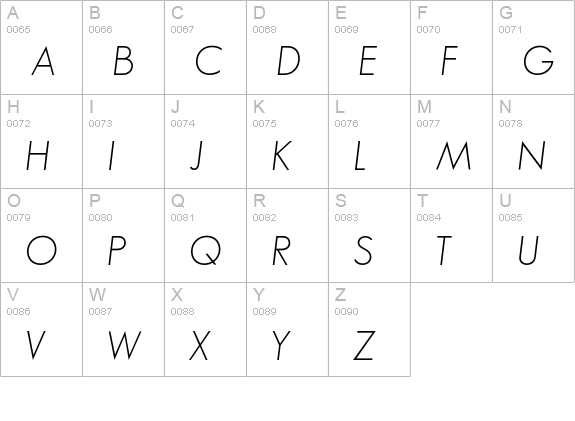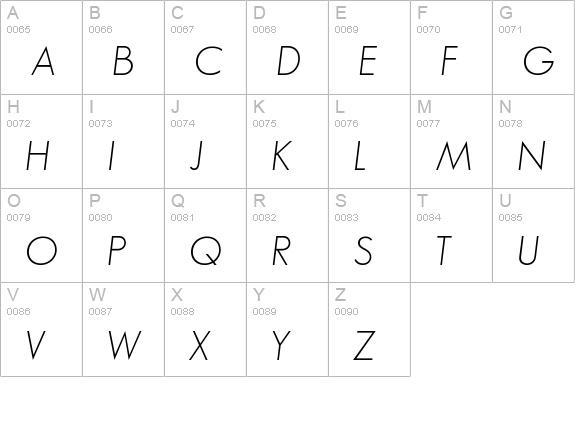
SansSerifFLF-Italic Font Details
SansSerifFLF-Italic is a distinctive, italic variant in the SansSerifFLF typeface family \xE2\x80\x94 well suited to design and typography projects.
Introducing SansSerifFLF-Italic, a visually captivating font that effortlessly adds an elegant touch to any design project. With its sleek and modern appeal, this font is perfect for those looking to make a bold statement while still maintaining a sense of sophistication. The italicized nature of SansSerifFLF-Italic brings a sense of movement and dynamism, making it ideal for attention-grabbing headlines, stylish logos, and eye-catching branding materials. Its graceful curves and gentle slant create a harmonious balance between professionalism and creativity, making it a versatile choice for both print and digital applications. One of the most remarkable aspects of SansSerifFLF-Italic is its availability as a free download at FontsMarket.com. Embracing the spirit of accessibility and inclusivity, this font offers the opportunity for designers, entrepreneurs, and creatives of all backgrounds to enhance their projects with a touch of finesse, without burdening their budget. Whether you're working on a personal project or collaborating on a professional endeavor, SansSerifFLF-Italic is sure to become your go-to font. Its seamless integration with various design software and its wide range of glyphs and characters ensure that you have the freedom to truly express your creativity and bring your vision to life. Download SansSerifFLF-Italic today from FontsMarket.com and unlock a world of possibilities for your next design venture. Join the community of satisfied users who have discovered the power of this font and witness its transformative effect on your own projects. Let SansSerifFLF-Italic be the driving force behind your design success, as you effortlessly captivate audiences and make a lasting impression.